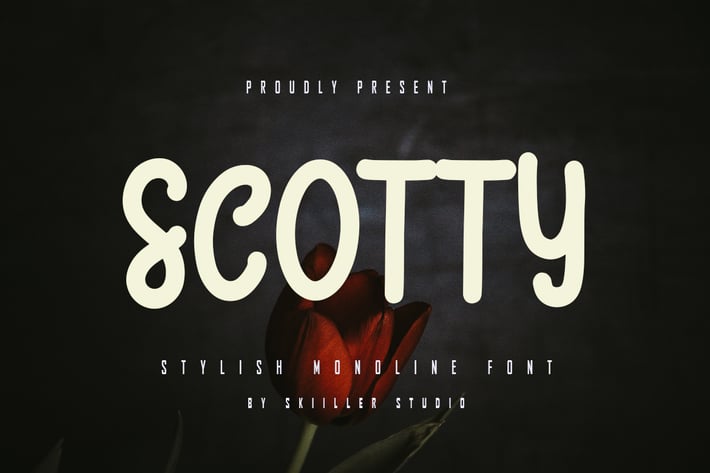
Scotty - Stylish monoline font
Scotty is a monolinel Handwritten Font, crafted to give your headlines and logotype projects a stylish touch. This font reads as strong, confident, and dynamic and can add tons of urban character to your designs.